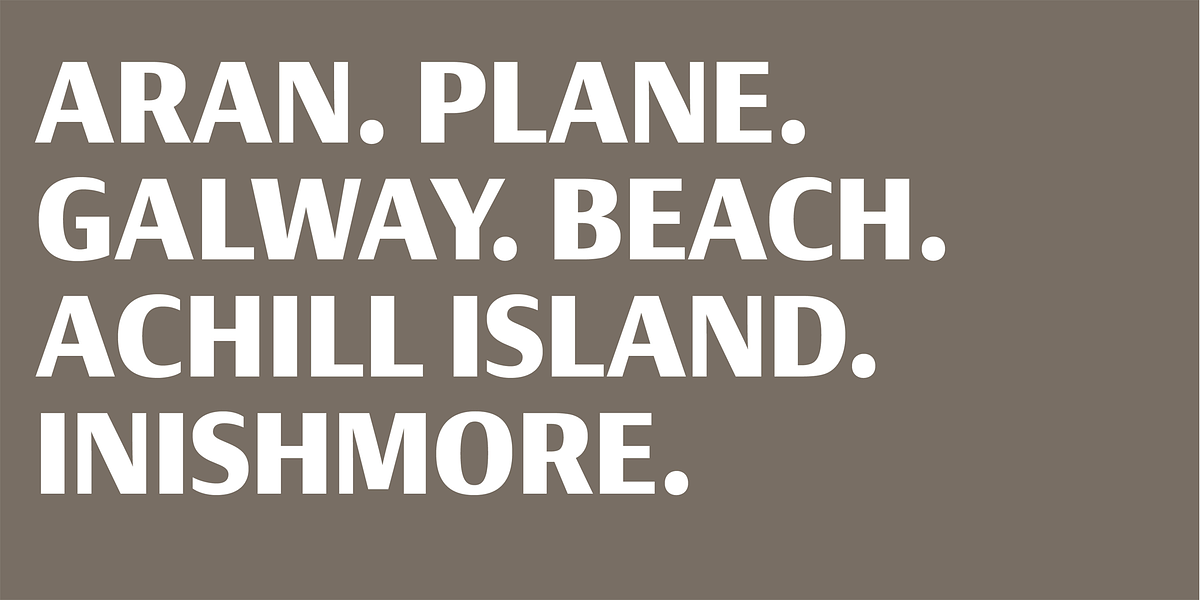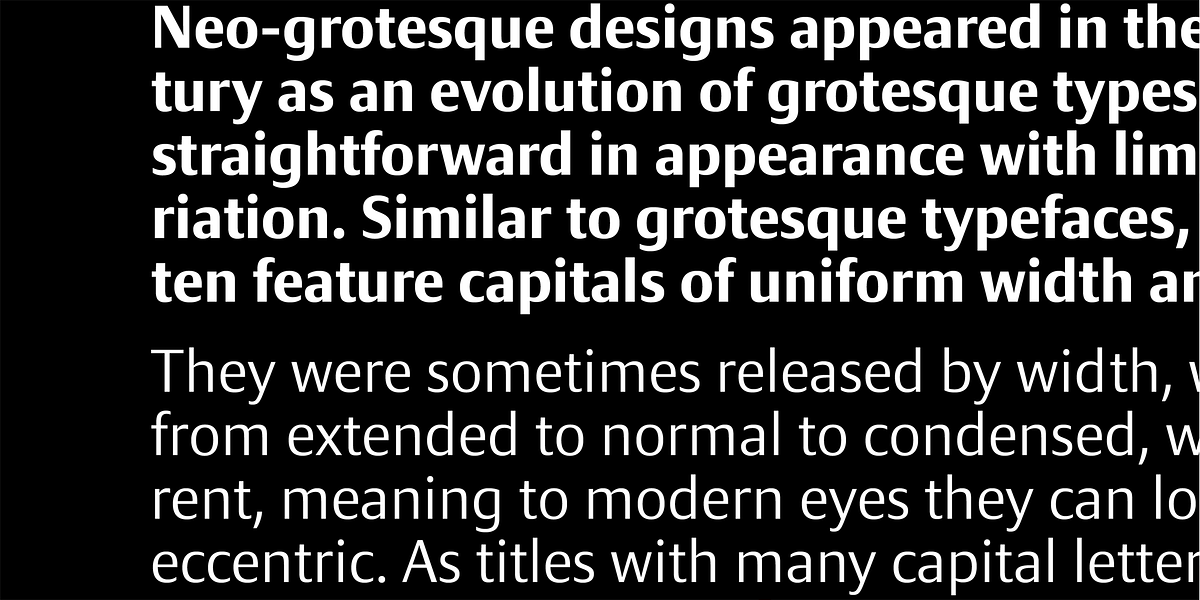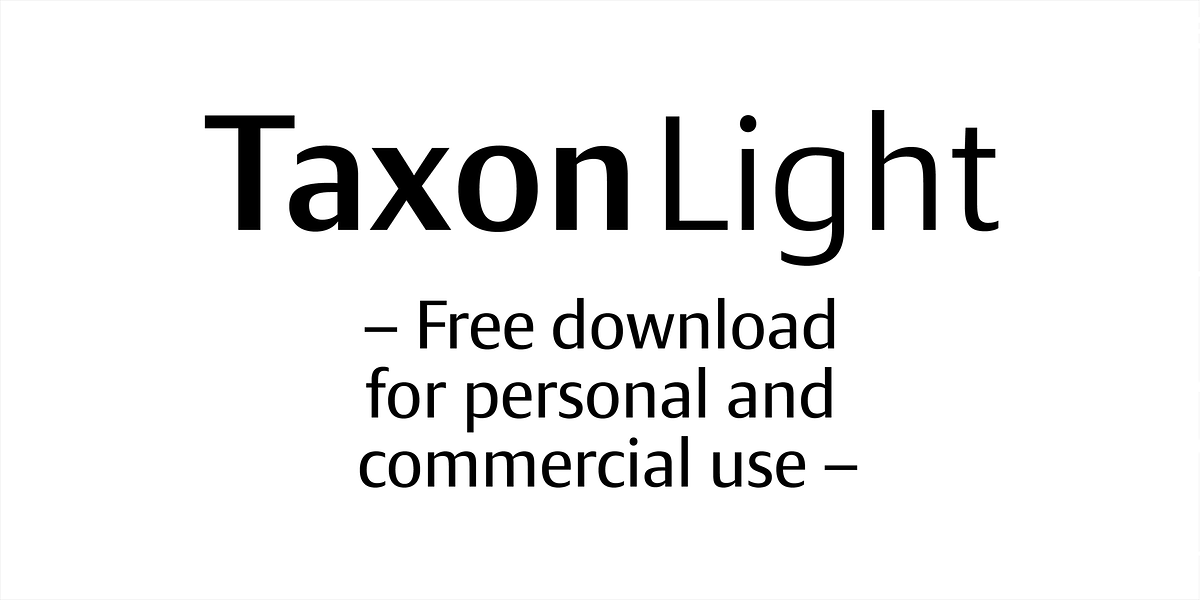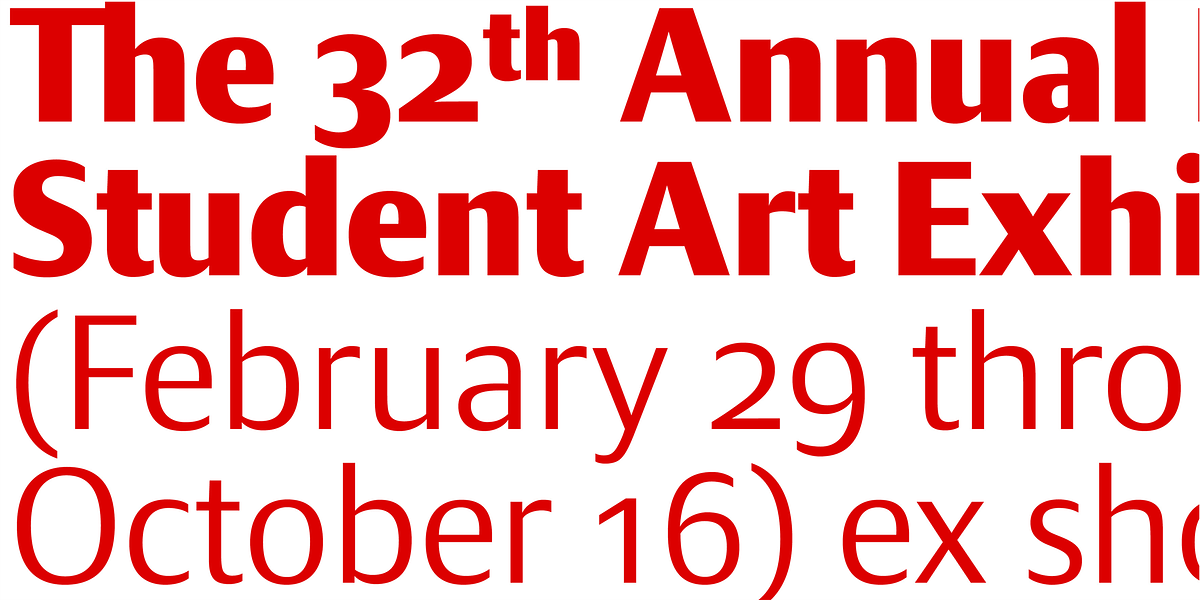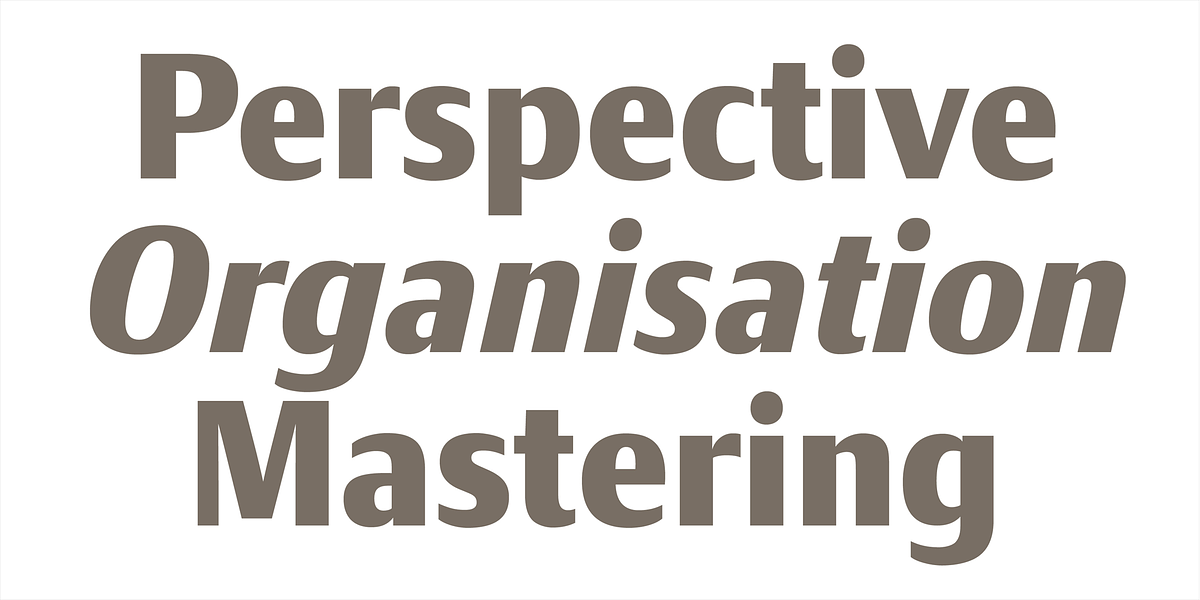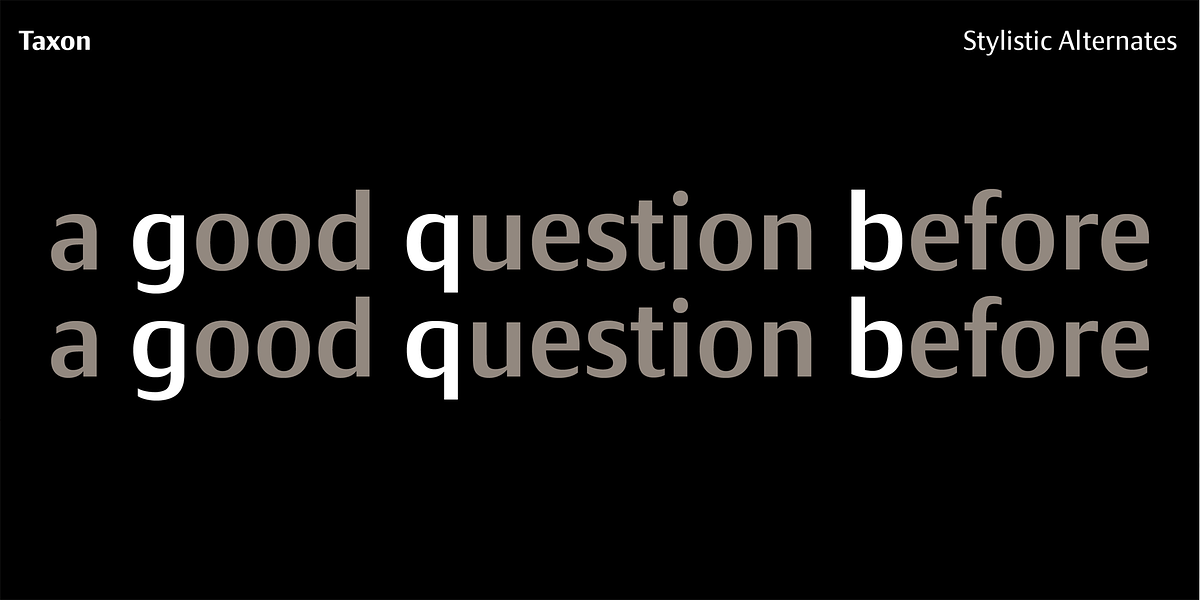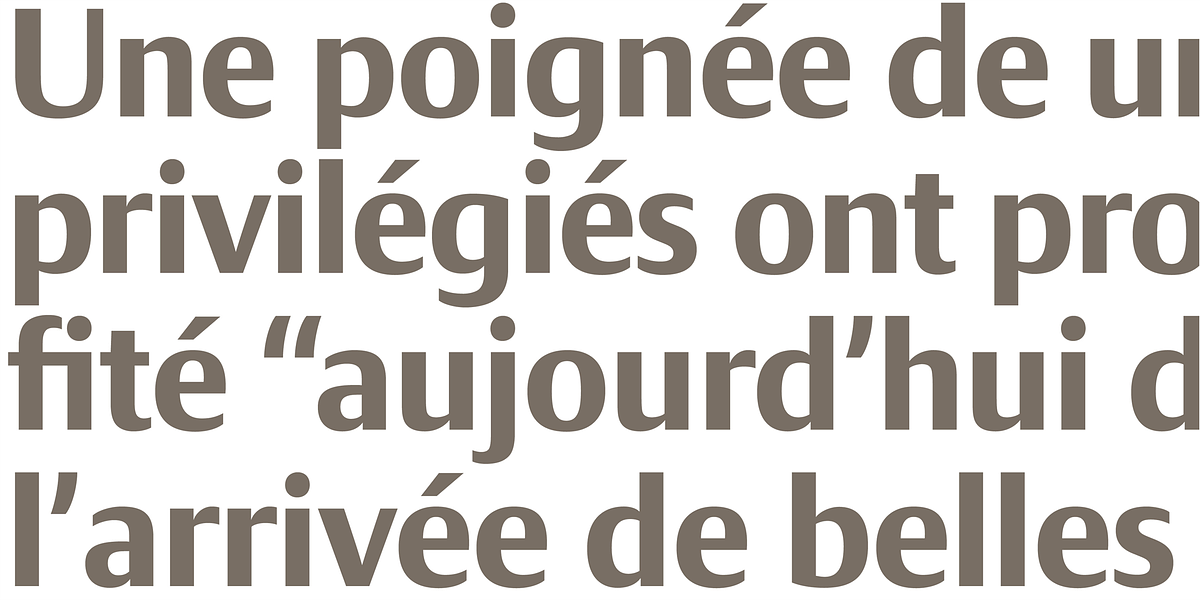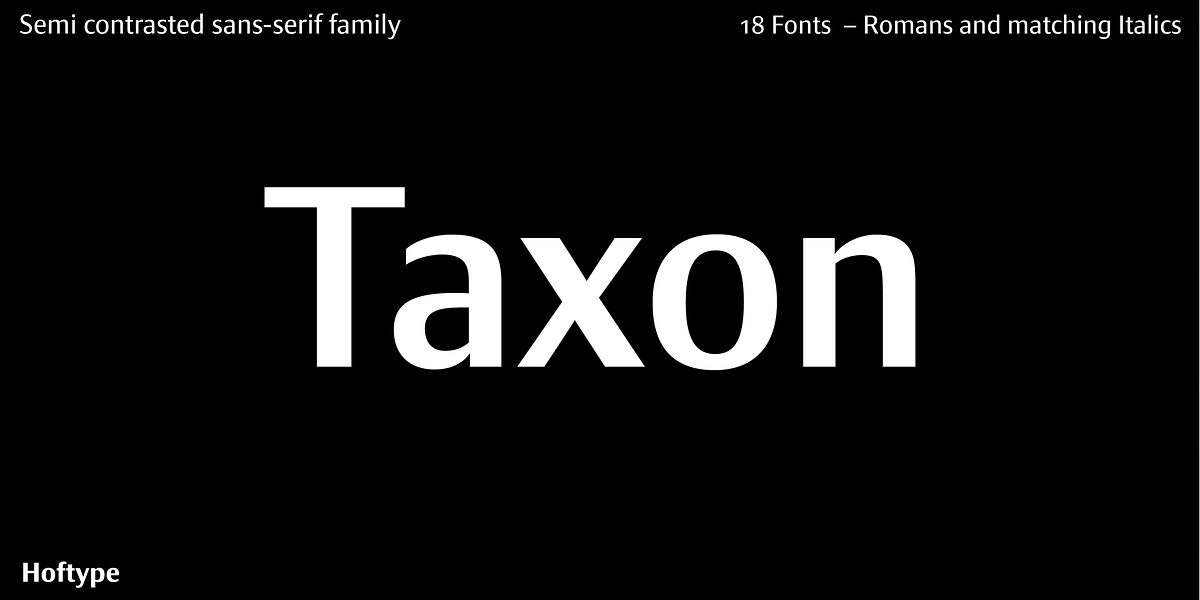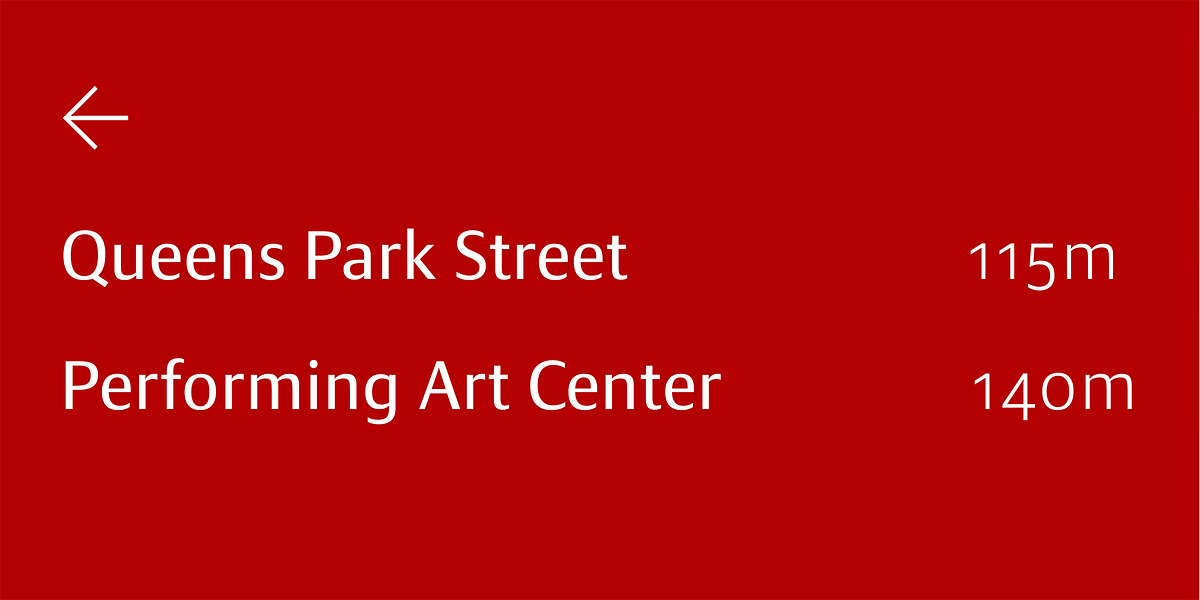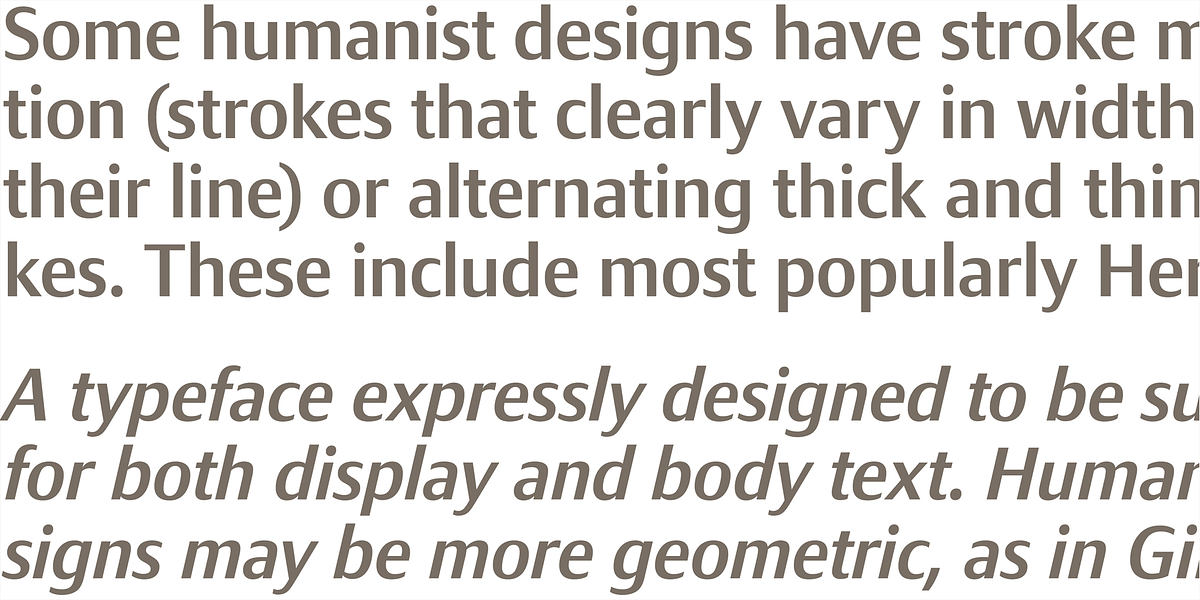
Taxon
Taxon is a neo-humanist sans serif font inspired by classical faces like Optima and Imago. It features a clean, fresh aesthetic with straight lines and a contemporary feel. The typeface comes in 12 styles and supports a wide range of typographic needs thanks to its extended language support and inclusion of various OpenType features.